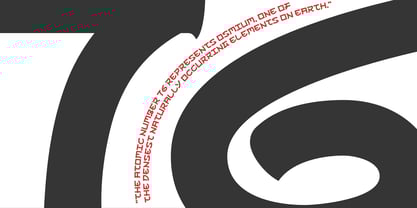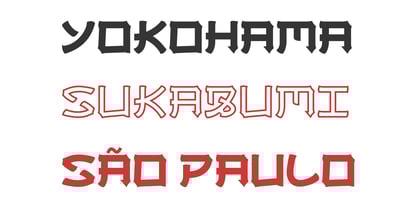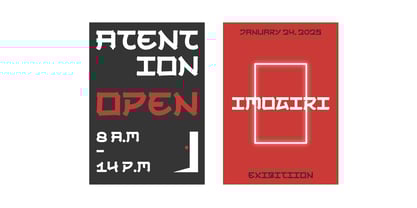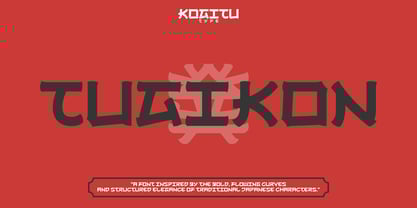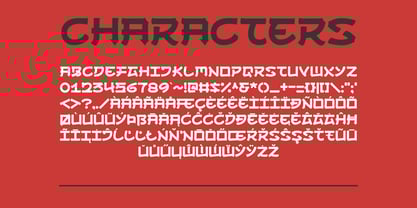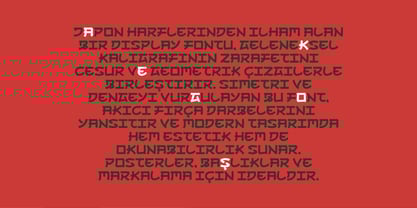
KGT Tugikon
The KGT Tugikon Font Family was designed by Rioniga Zandy and published by Kogitutype. KGT Tugikon contains 1 styles. More about this family
Introducing our KGT Tugikon, inspired by the bold and dynamic strokes of traditional Japanese calligraphy. This font, with its sharp, angular edges and distinct geometric shapes, exudes strength, resilience, and a contemporary aesthetic, perfect for branding, posters, and headlines. It strikes a balance between modernity and tradition, giving any text an eye-catching, impactful presence. Each character embodies a unique, almost stencil-like form, making it ideal for projects that seek an Eastern-inspired, edgy feel with a modern twist.